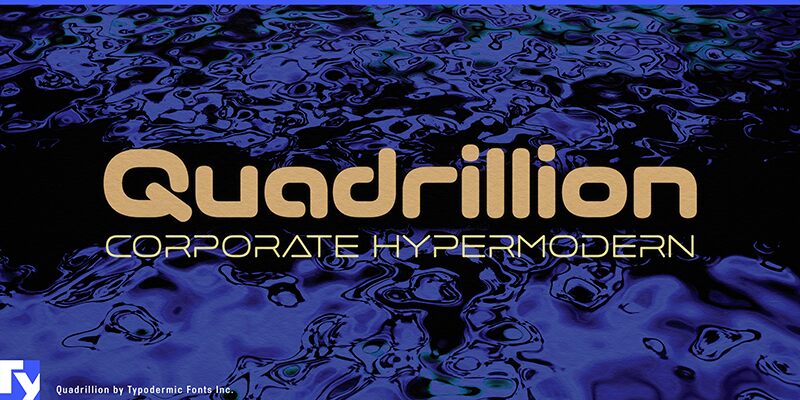
Quadrillion font family by Typodermic Fonts includes 2 font styles. This free font family features techno-style characters with sleek, futuristic aesthetics. The geometric letter designs are streamlined and clean, adding a high-tech edge for a contemporary look. The modern aesthetic is visually striking and can catch the eye with its beautiful flow across a surface.
Add it to your collection for designs with a modern twist, or enhance your creative projects with an extra touch of elegance. Use it in magazines, catalogs, posters, flyers, online banners, cards, and more. Quadrillion is a wonderful addition that can give your branding designs the needed regeneration to keep up with the current competition.
Quadrillion Semi Bold is a wide, futuristic sans serif featuring capsule-shaped forms and rounded terminals. Its balanced geometry and generous spacing provide a smooth, confident rhythm that makes it stand out in headlines while ensuring clarity in modern branding and editorial layouts.
The design integrates the sleek speed of techno lettering with a softer, more approachable touch, making it ideal for tech interfaces, packaging, cinematic titles, and other innovative projects. With support for Latin, Greek, and Cyrillic alphabets, Quadrillion easily adapts to global design endeavors.